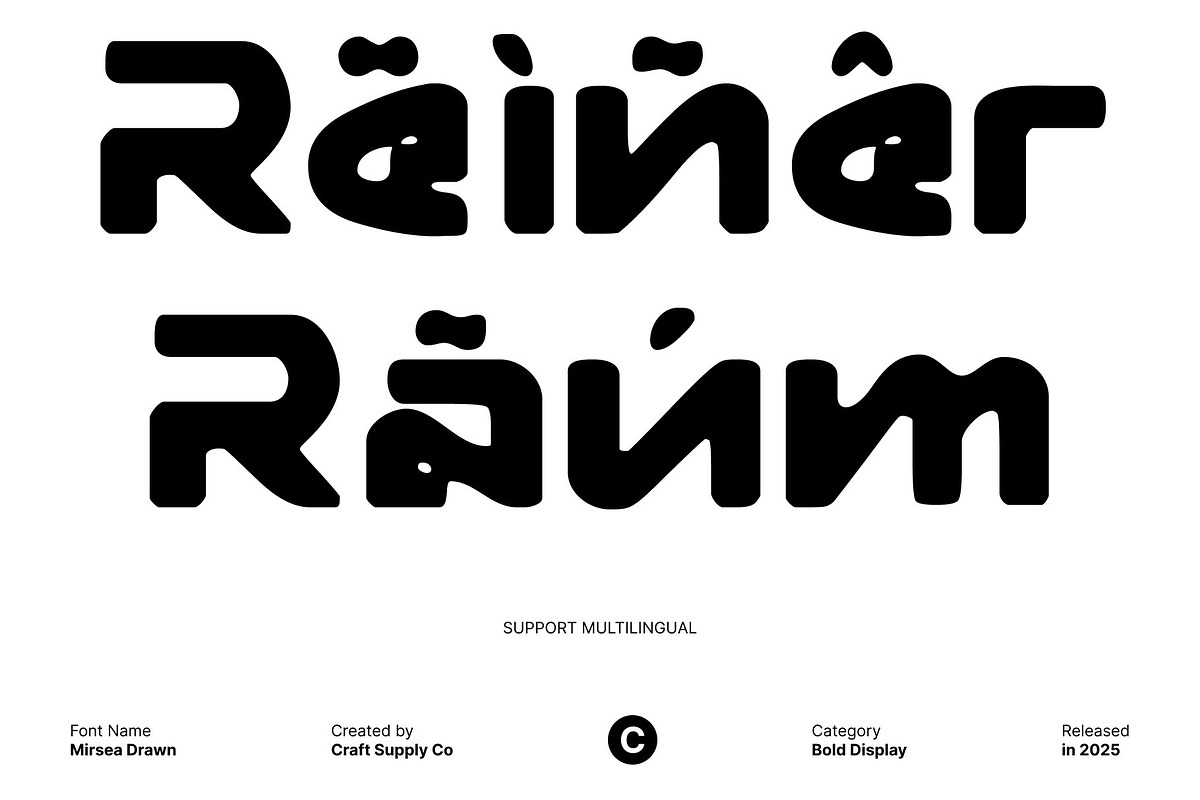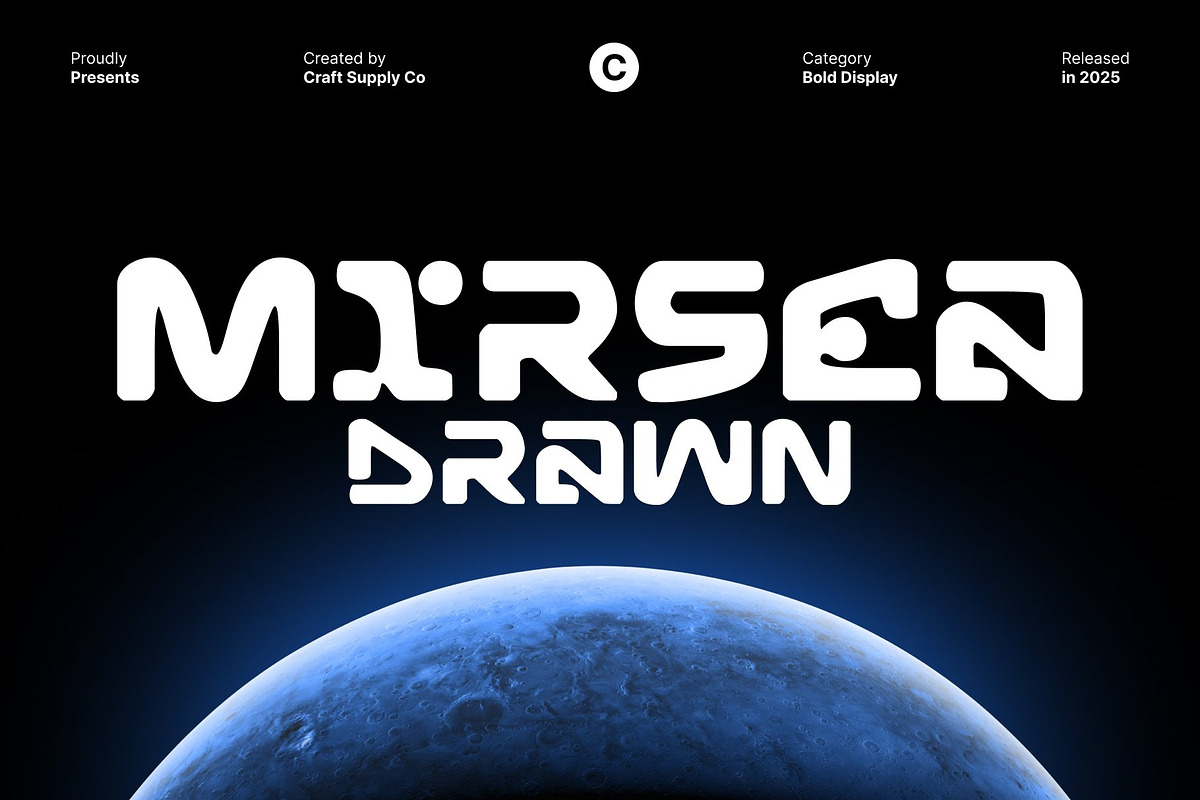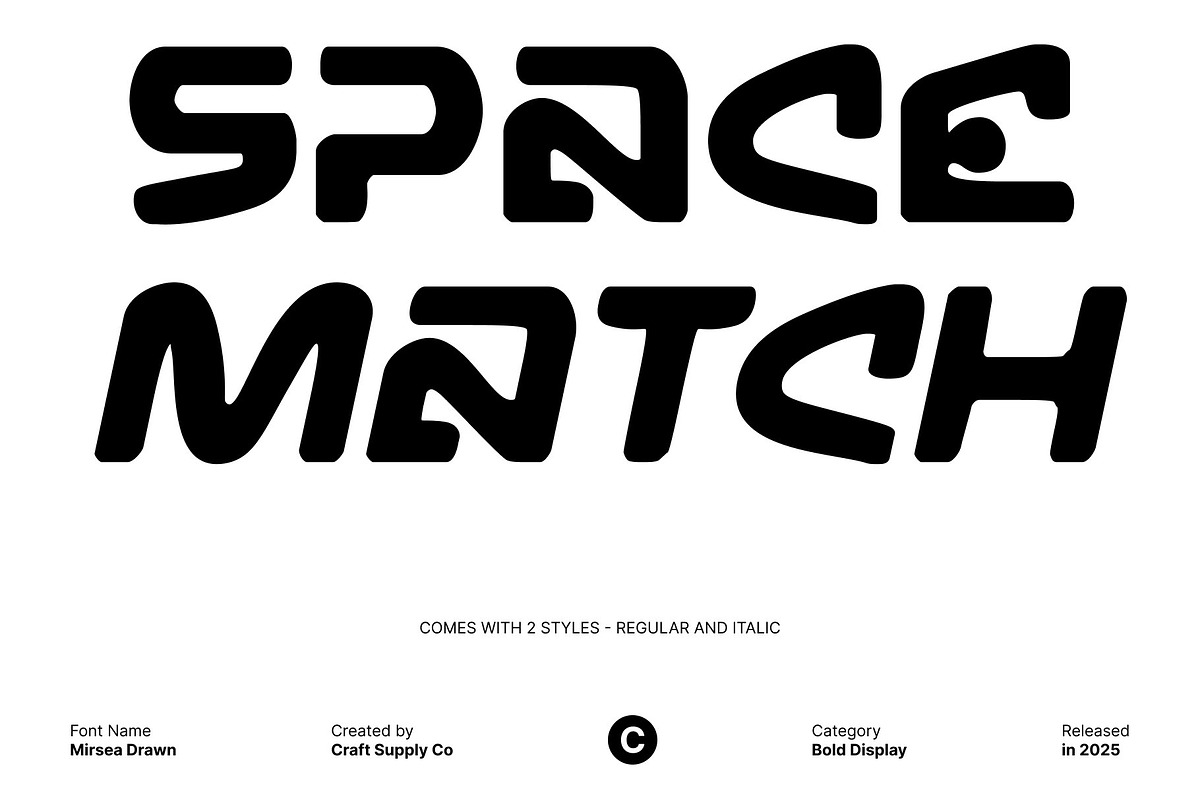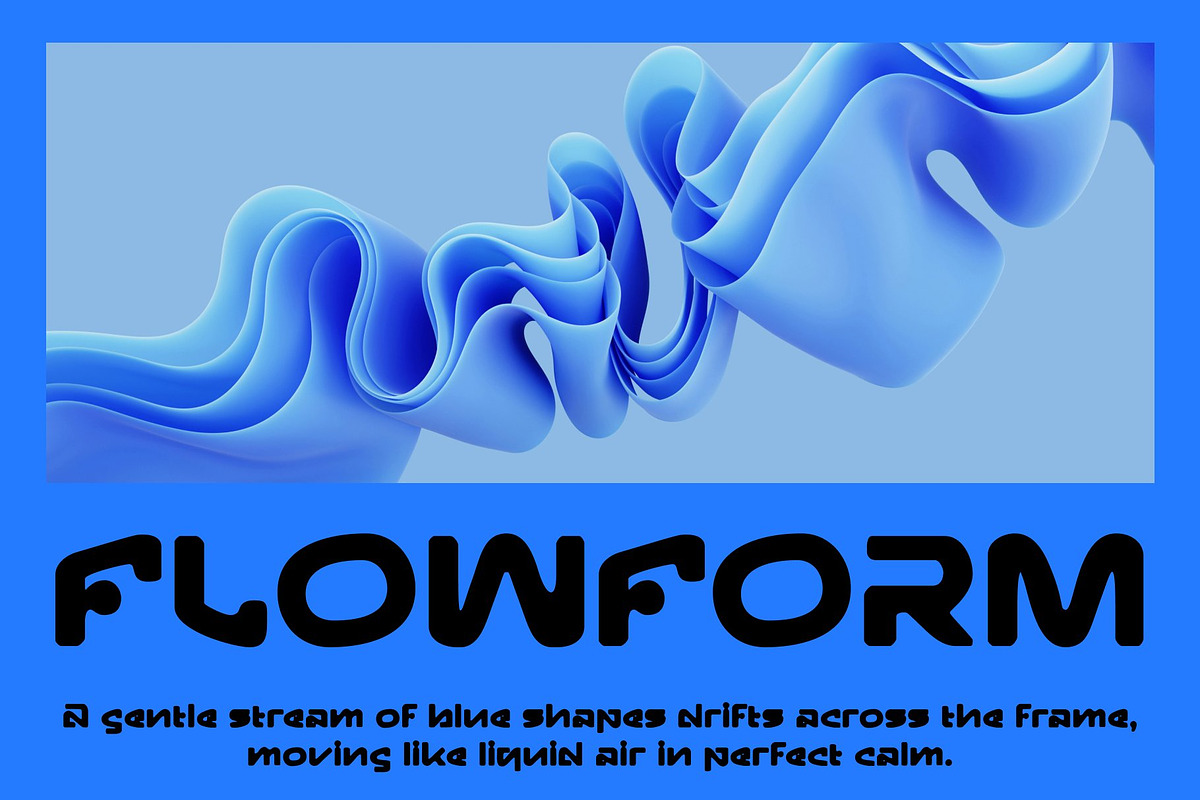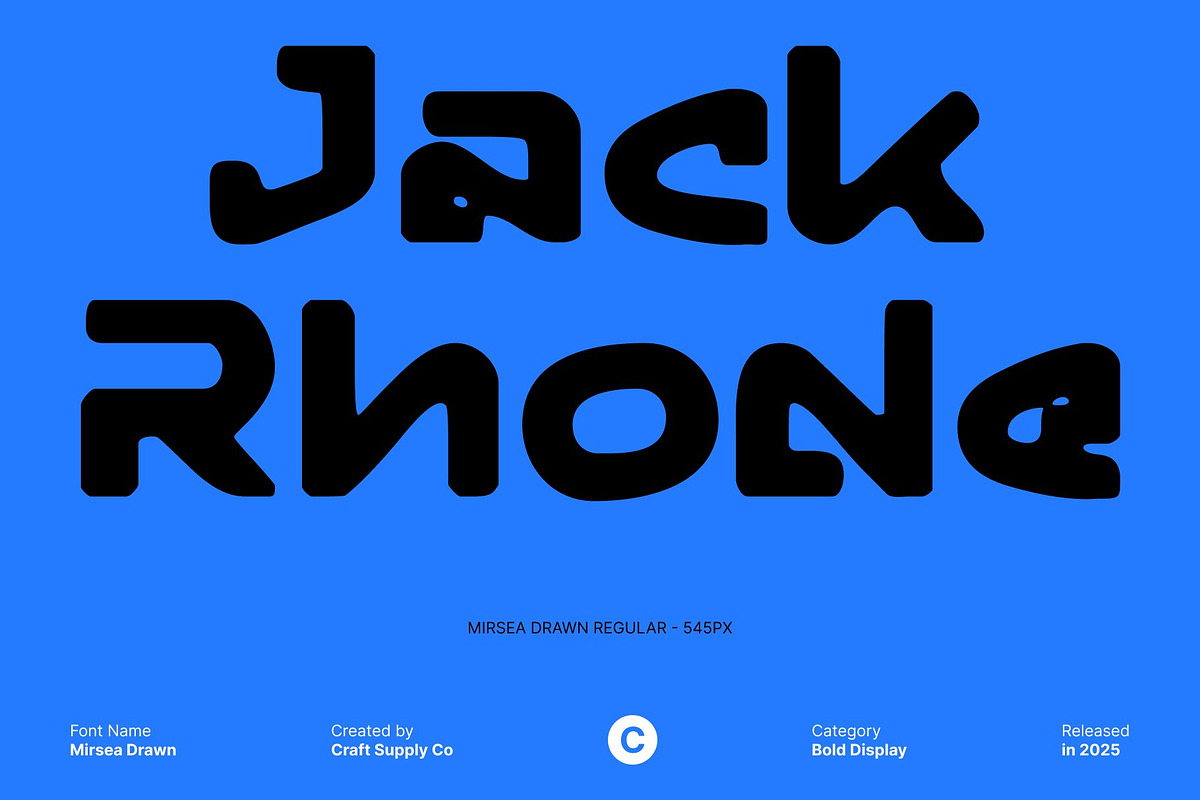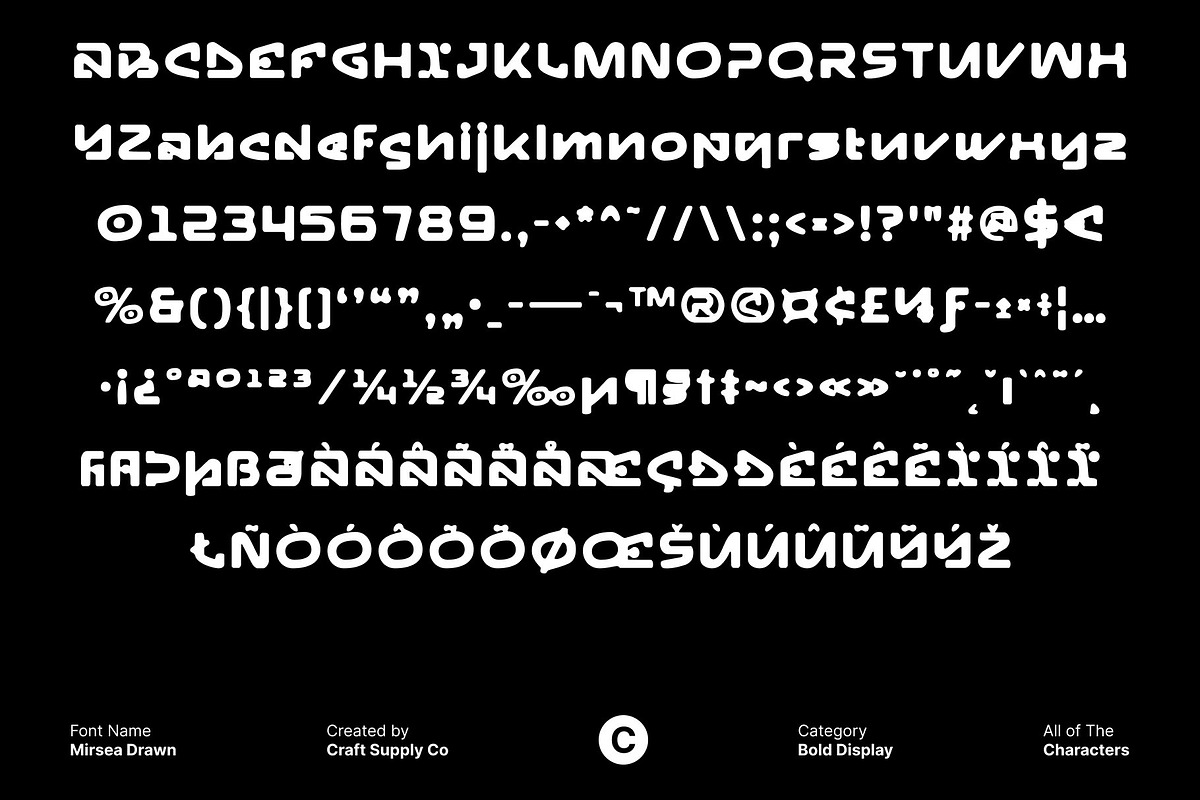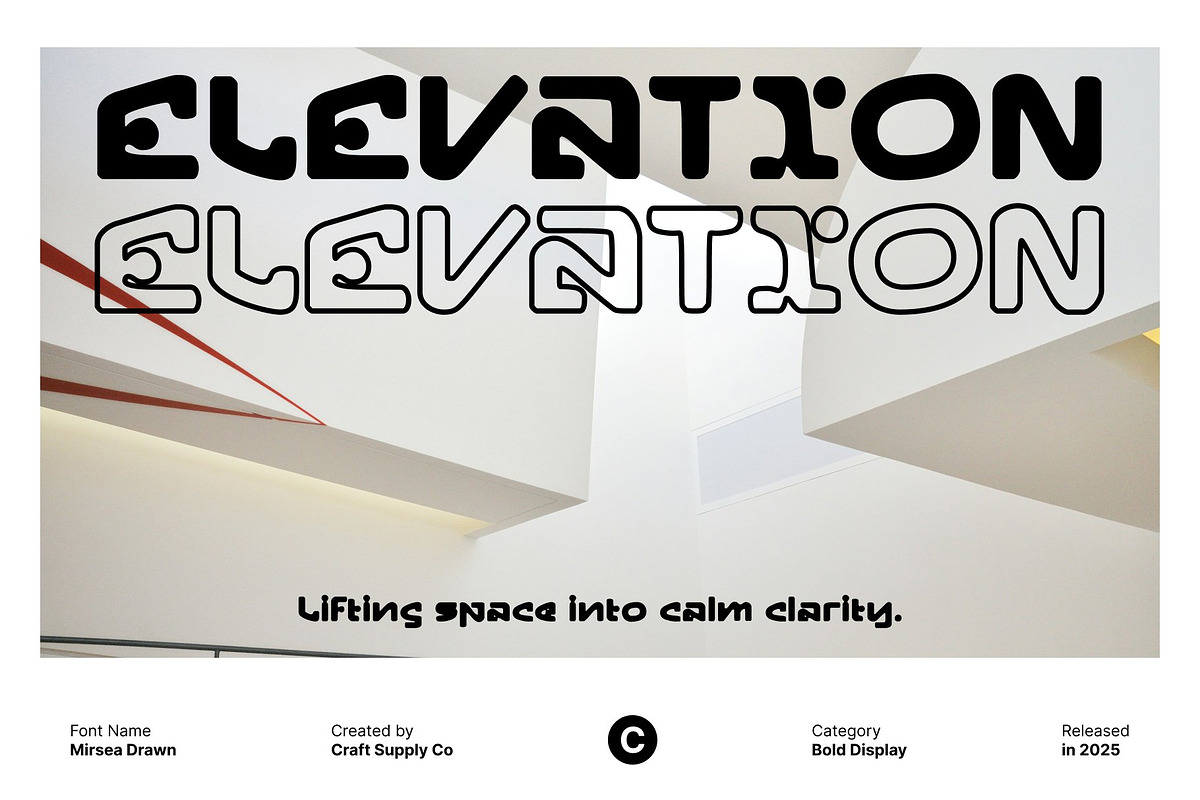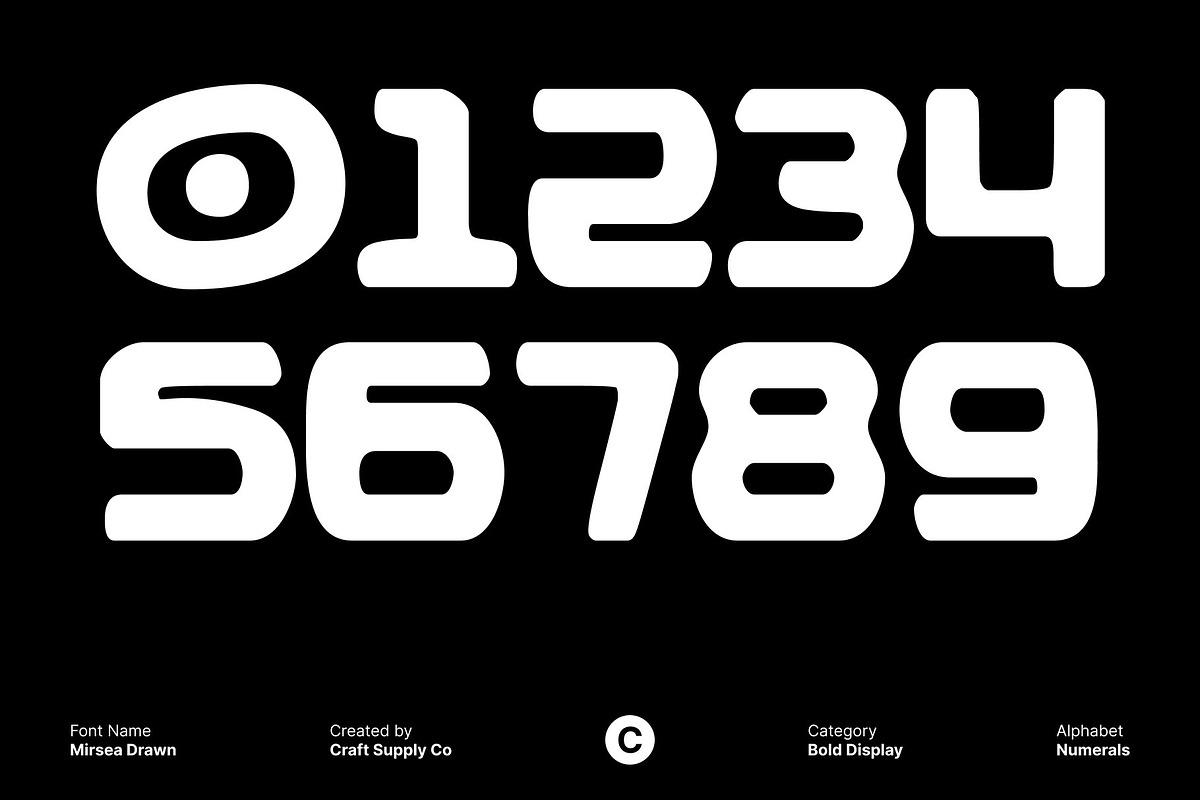
Mirsea Drawn
Mirsea Drawn – Futuristic Sci-Fi Font with a Raw, Hand-Drawn Edge
Techno Geometry with a Drawn Twist This font is a futuristic sci-fi display that merges sleek techno geometry with an expressive drawn effect. Instead of relying solely on clean precision, this font introduces irregular, hand-crafted forms that add personality while maintaining a sharp, forward-looking aesthetic.
Sharp Edges for Bold Visual Impact Designed with crisp, angular edges, this font delivers a strong visual punch that instantly elevates any digital or cinematic interface. The sharp detailing reinforces the futuristic feel, making it a powerful option for video game titles, cyber environments, and high-tech branding. Its assertive forms help create immersive atmospheres filled with energy, motion, and innovation.
Irregular Drawn Shapes for Unique Futuristic Expression The drawn effect gives this font an irregular contour, introducing subtle variations that feel organic and unexpected. This handcrafted touch adds depth and character, making the font look less mechanical and more visually intriguing. The result is a futuristic font that feels alive perfect for creative projects that demand originality and memorable styling.
Perfect for Games, Interfaces, and Film Branding From sci-fi game titles and cyberpunk HUDs to movie posters and futuristic logos, this font adapts seamlessly across genres. Its mix of rigid geometry and expressive linework allows it to communicate technology, mystery, and innovation all at once.